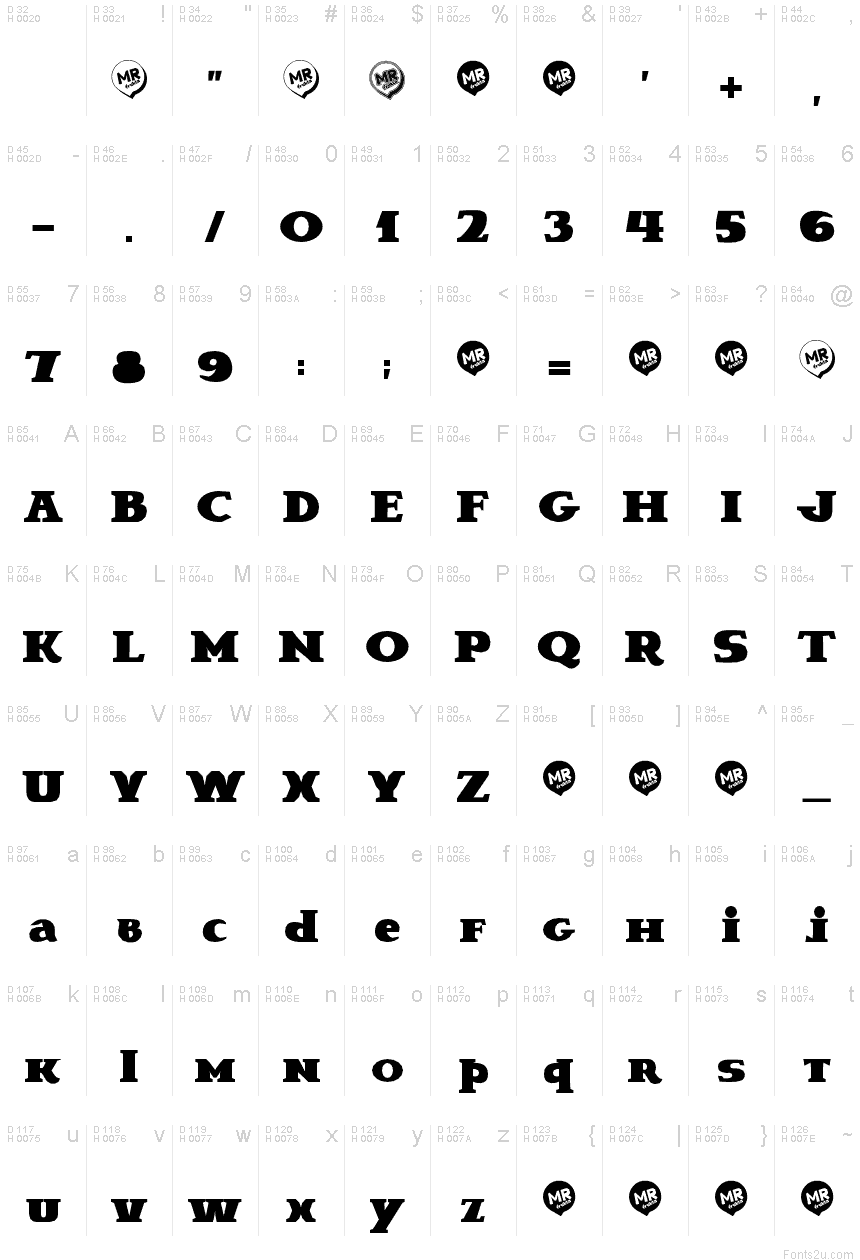
Brava, made in 2010 by Mr. Frukta, is a free playful serif display font with broad, weighty letters and blunt slab-like details. Its uneven proportions, tilted joins, and lively changes in width give the lettering the rough humor of hand-cut poster type, with pointed feet kicking outward at unexpected angles.
Food, comedy, and informal entertainment are especially convincing subjects for this oversized, slightly unruly style. The letters feel almost illustrated on festival posters and children's book covers. For snack packaging and venue branding, its chunky silhouette can become a memorable badge for a casual restaurant, comic shop, or novelty product.